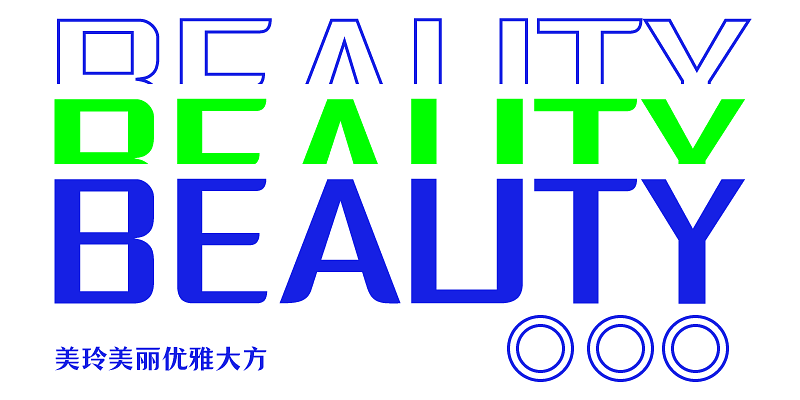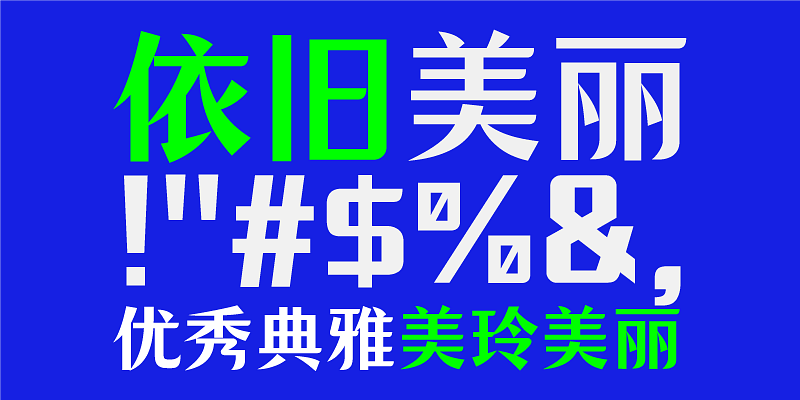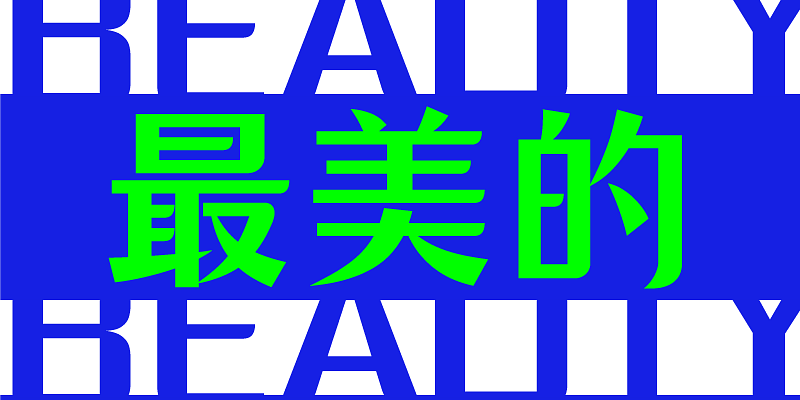
The design of HelloFont ID MeiLingTi is inspired by Sòng Typeface. It is slender and elegant, and the structure is compact and rigorous with intended strokes. Combined with round turning, this font looks firm and soft, neat and exquisite , giving it a graceful appeal to the fullest extent.